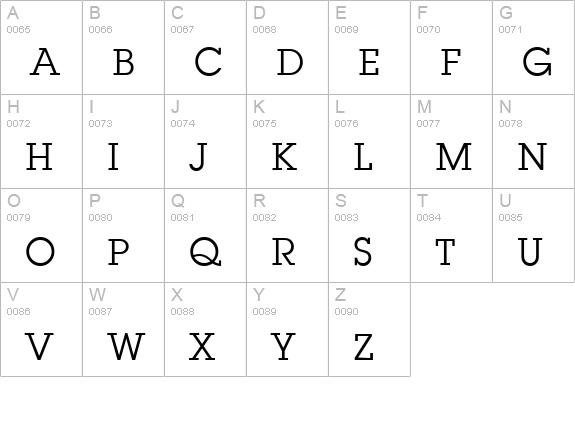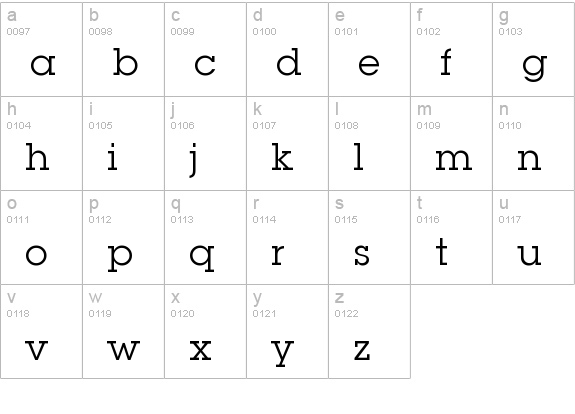
SquareSerif-Regular is the standard, neutral variant in the SquareSerif typeface family \xE2\x80\x94 well suited to general body text, paragraphs, and standard typographic work.
SquareSerif-Regular is a classic and versatile font that exudes a sense of modernity and sophistication. With its clean lines and distinctive square serifs, this font is perfect for a wide range of design projects, from logos to branding to editorial layouts. Its timeless appeal makes it a popular choice for designers looking to add a touch of elegance to their work. The best part? SquareSerif-Regular is available for free download at FontsMarket.com. This means you can easily access this high-quality font without breaking the bank. Whether you're a seasoned designer or just starting out, SquareSerif-Regular is a valuable addition to your font library. Download it today and elevate your designs with this stylish and versatile typeface.